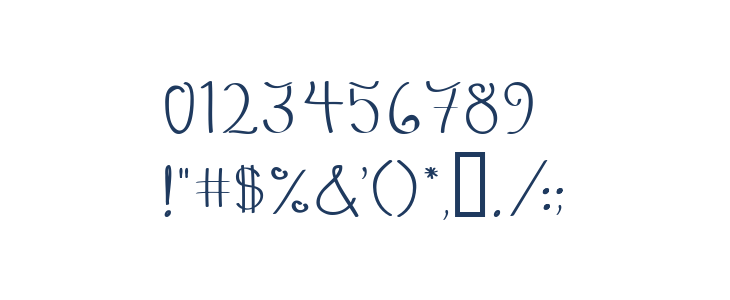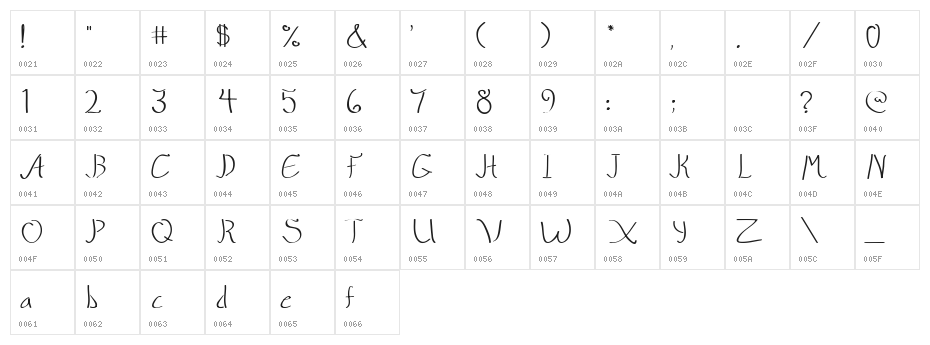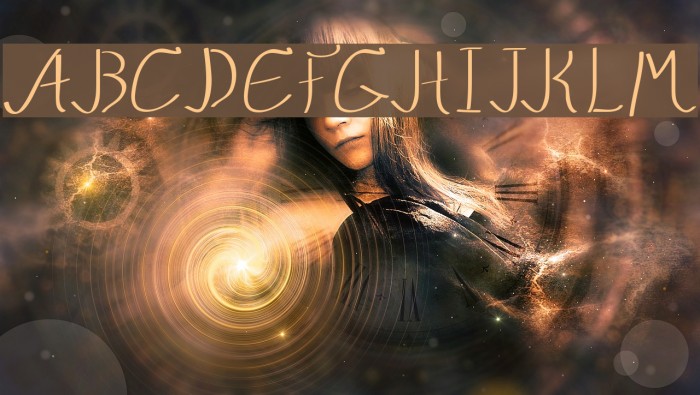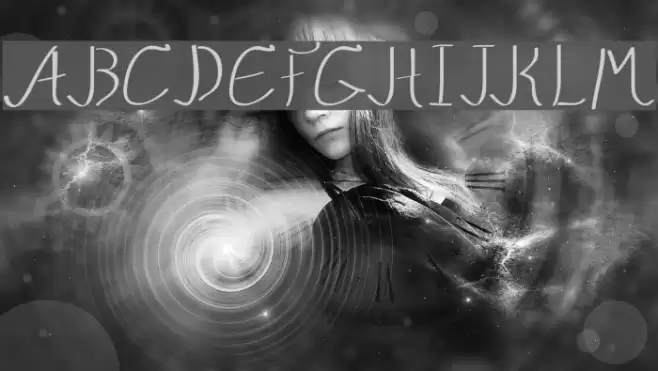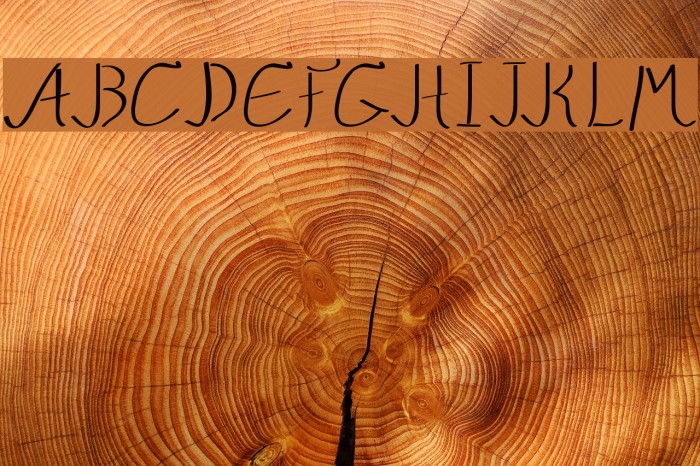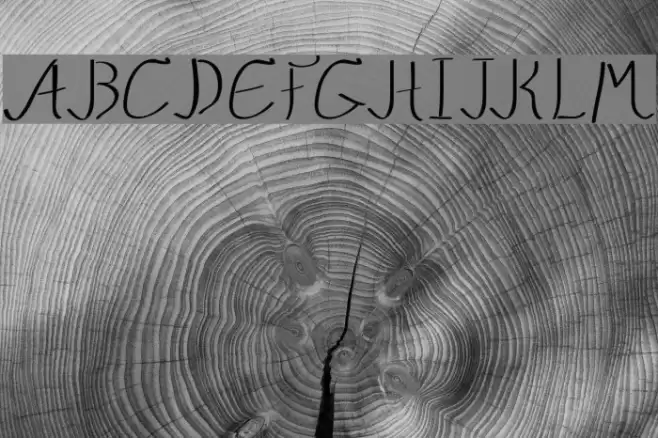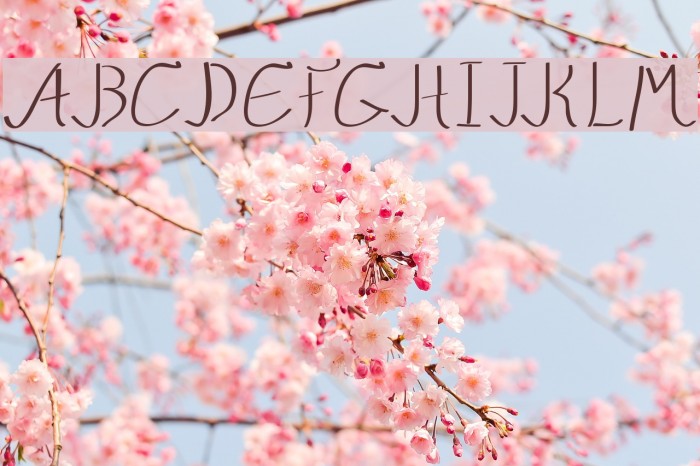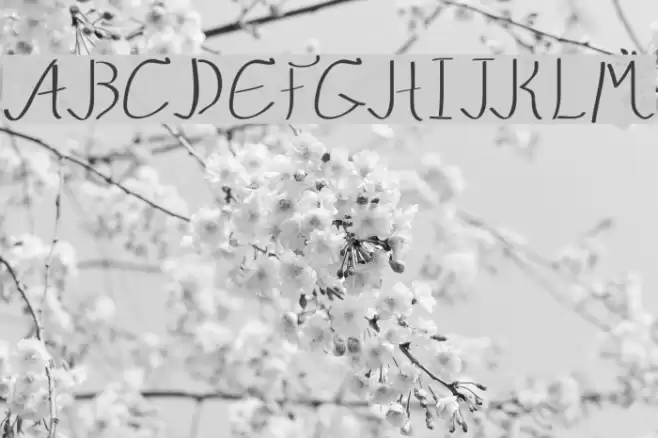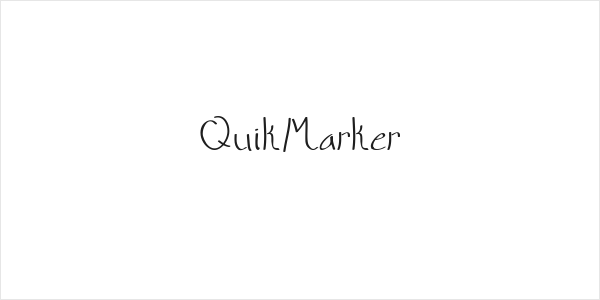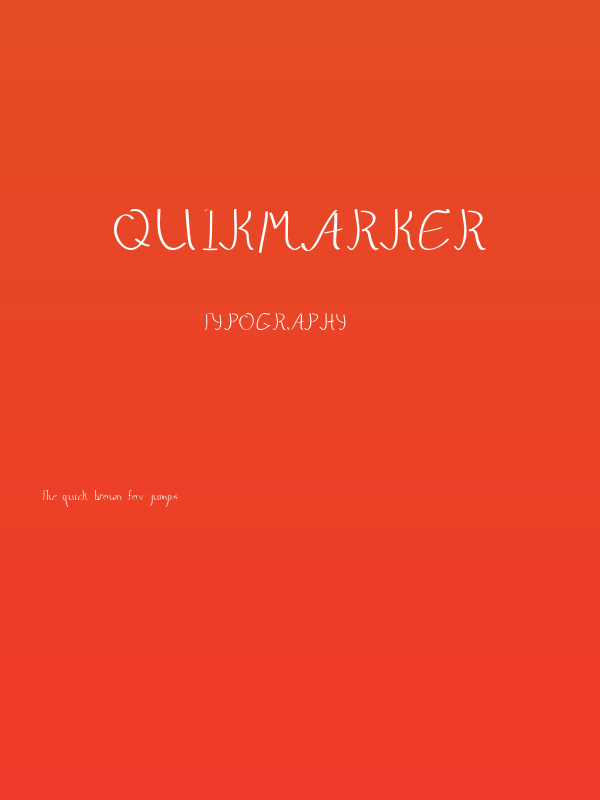
QuikMarker Font
QuikMarker Description
This font features a playful and dynamic handwritten style, characterized by its fluid and slightly irregular strokes. The uppercase letters exhibit a whimsical flair with varying stroke widths, while the lowercase letters maintain a consistent yet lively appearance. The numerals are distinct and easy to read, complementing the overall aesthetic. Special characters are creatively integrated, adding to the font's unique personality. This font's informal and friendly style makes it suitable for projects that require a personal touch.
| Proposed Projects | Ideal for greeting cards, invitations, children's books, and creative branding. |